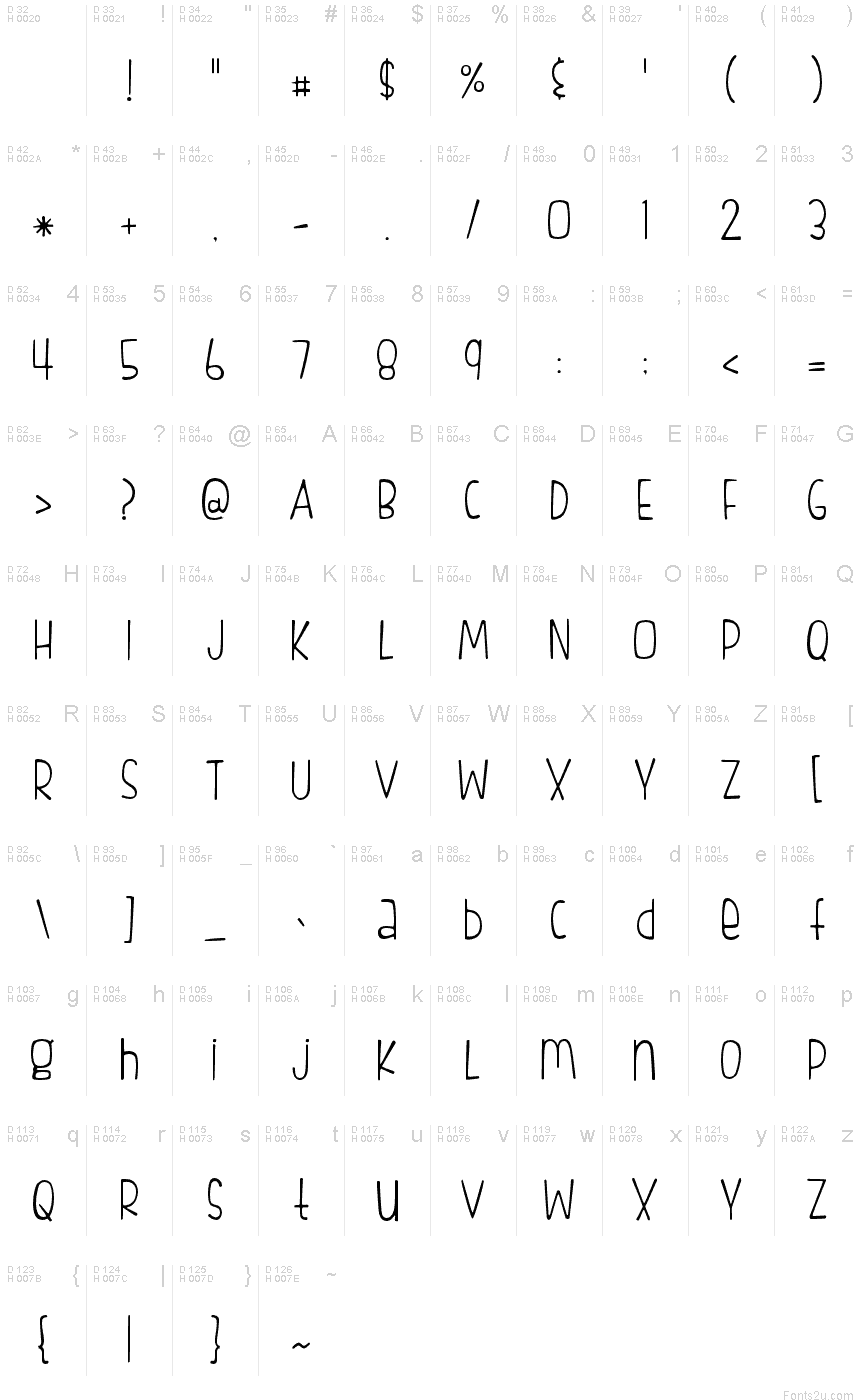
FISHfingers Light by Brittney Murphy is a free handwritten font with tall, narrow letters and a loose monoline stroke. Slight changes in width, height, and alignment keep the lettering lively, and the rounded bends soften its unusually stretched proportions.
Restaurant menus and children's publishing both suit its wiry, informal drawing. On seafood packaging or summer event posters, the letters can become part of the illustration, echoing strands, waves, or quick marker lines instead of serving as neutral text.